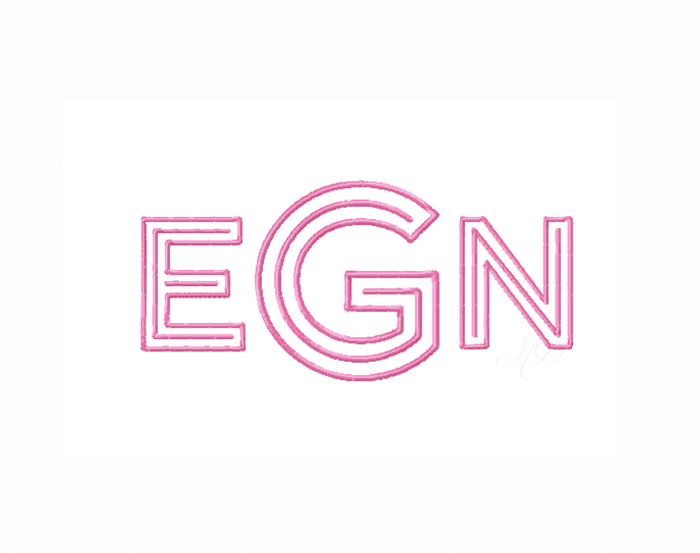
Single Color Neon Signage Font Package for embroidery designs
Single Color Neon Signage 4x4 Font Package
Unleash your creativity with the Single Color Neon Signage Font Package, ideal for crafters and DIY enthusiasts. This versatile embroidery font features satin stitches and includes six size options, all of which fit perfectly into a 4x4 embroidery hoop. Customize your projects with uppercase letters A-Z and numbers 0-9, enhancing your creations with a unique neon flair.